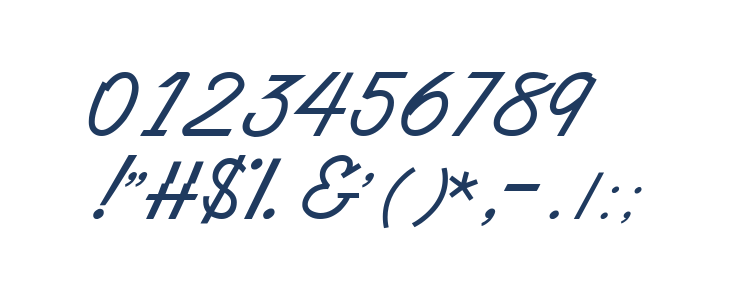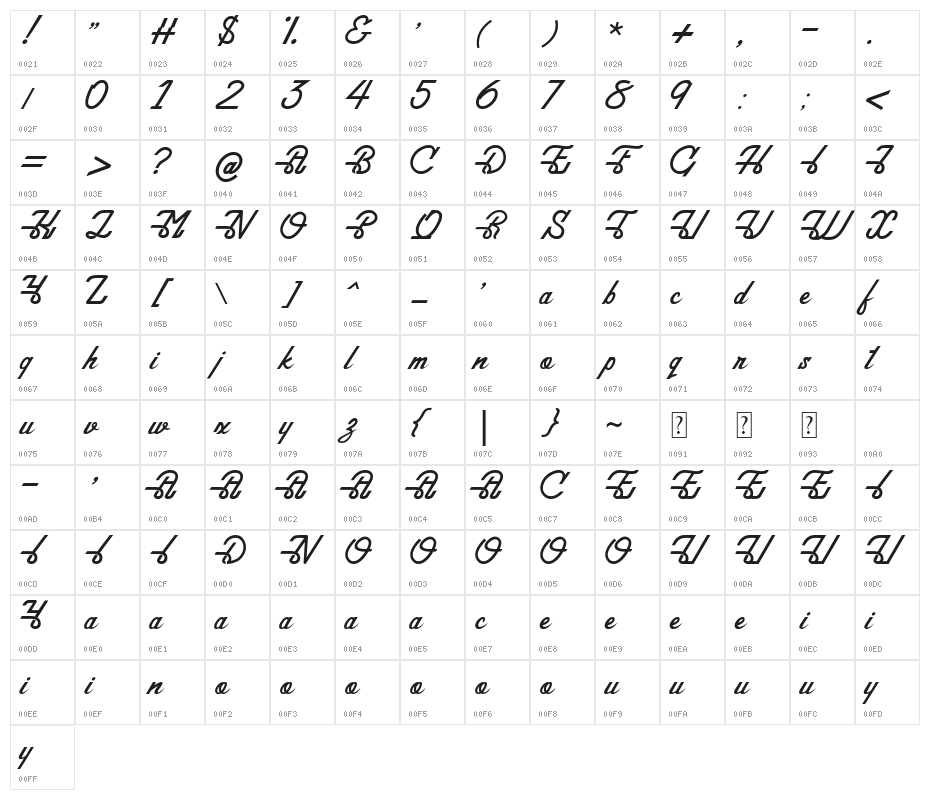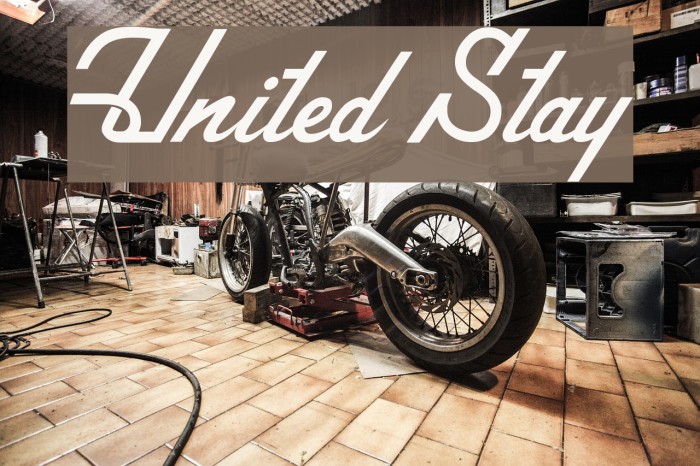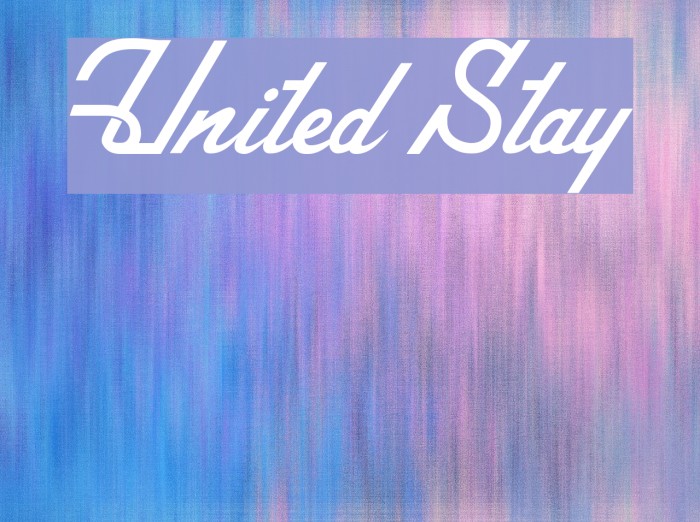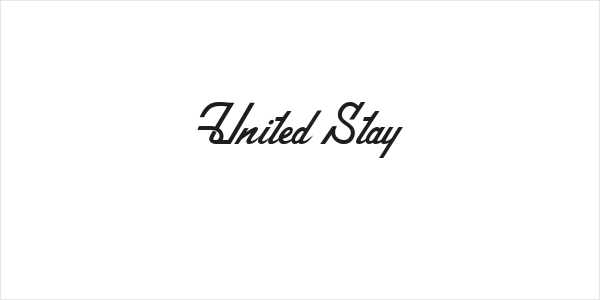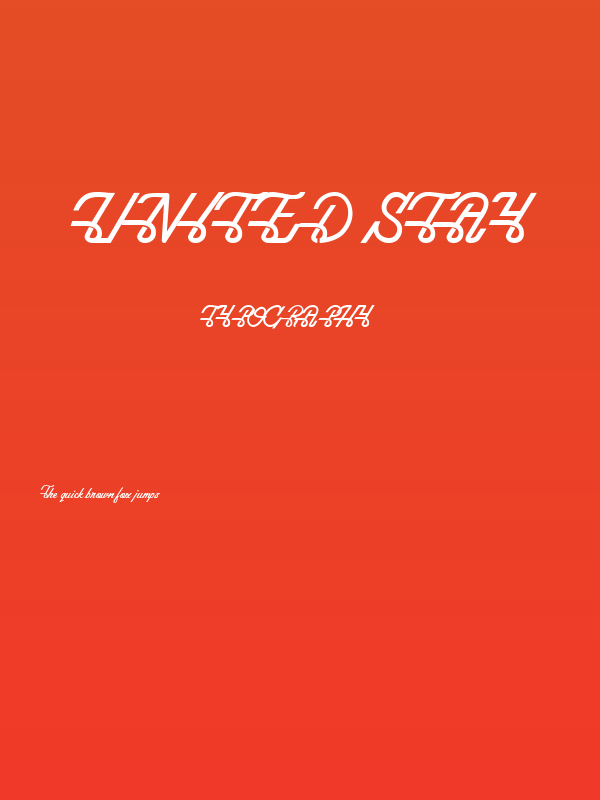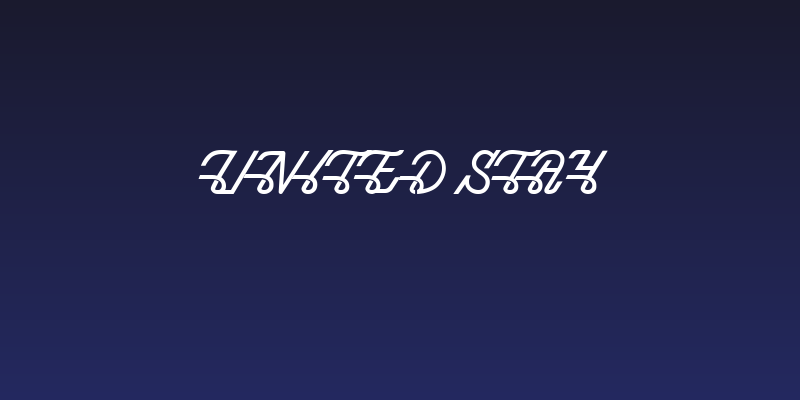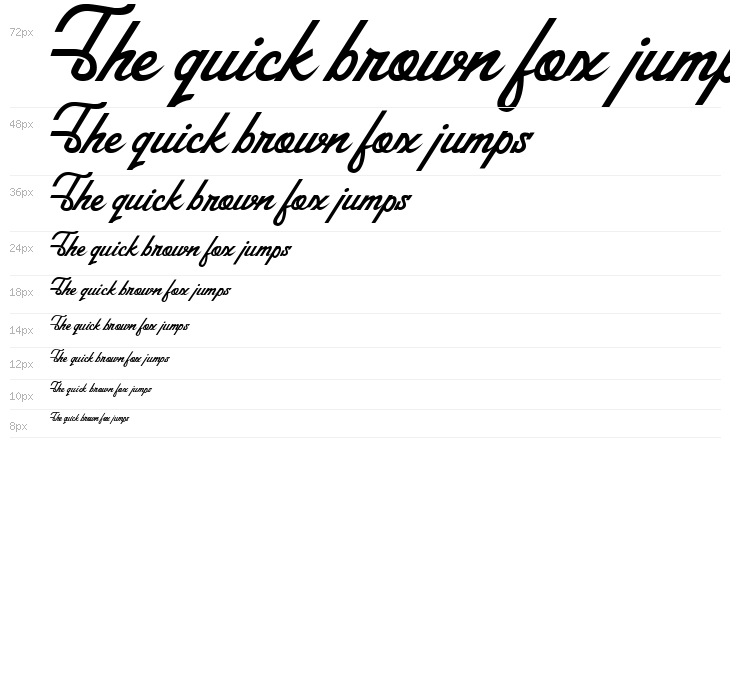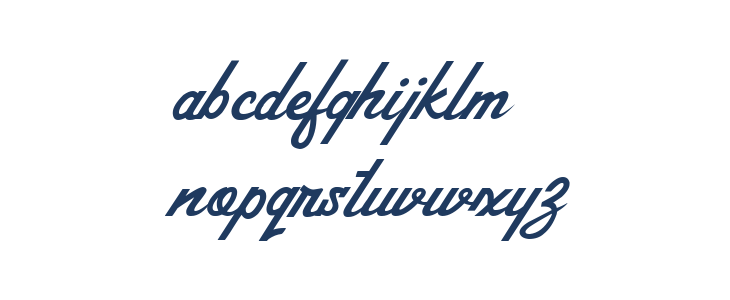
United Stay Font
United Stay Description
This font features a dynamic and elegant script style with a flowing, cursive design. The uppercase letters are characterized by their sweeping curves and connected strokes, giving a sense of movement and fluidity. The lowercase letters maintain a similar style, with smooth transitions between characters, enhancing readability while retaining a sophisticated appearance. The numerals are consistent with the script style, featuring rounded edges and a slight slant that matches the overall aesthetic. Special characters are well-integrated, maintaining the font's cohesive look. This font is ideal for projects that require a touch of elegance and personal flair.
| Use Case | Headlines, Invitations, Branding |
| Proposed Projects | Ideal for wedding invitations, elegant branding, personal stationery, and decorative headlines. |